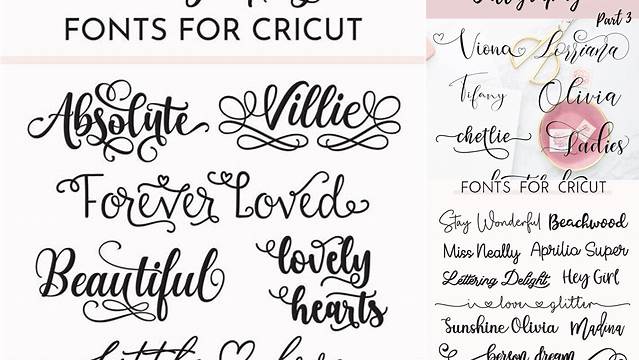
Elegant Calligraphy Fonts For Cricut: A How-To Guide
Hey crafters! Are you looking to add a touch of elegance and personalization to your Cricut projects? Look no further than the beautiful world of calligraphy fonts. In this guide, we'll dive deep into the best calligraphy fonts for Cricut, how to use them, and tips for creating stunning designs. Whether you're a beginner or an experienced crafter, this article will help you master the art of calligraphy with your Cricut machine.
What are Calligraphy Fonts?
Calligraphy fonts, at their core, are digital typefaces that mimic the fluid strokes and artistic flair of traditional hand-lettered calligraphy. These fonts go beyond the rigid structure of typical computer fonts, and instead feature flowing lines, varying stroke widths, and elegant flourishes that create a sense of handmade artistry. The magic of calligraphy fonts lies in their ability to evoke emotion and personality, making them ideal for a diverse range of projects from wedding invitations to home décor.
Calligraphy fonts are particularly useful for adding a personal touch to any design. Think about it – a handwritten element instantly elevates a project, making it feel more special and unique. This is where calligraphy fonts step in. They offer that beautiful, handwritten aesthetic without you needing to be a master calligrapher yourself! Imagine creating invitations that whisper elegance, personalized gifts that touch the heart, or home décor pieces that exude sophistication. That's the power of calligraphy fonts.
When we talk about the characteristics of calligraphy fonts, the first thing that often comes to mind is the flowing, connected letterforms. This continuous flow is a hallmark of traditional calligraphy and is expertly replicated in digital calligraphy fonts. The varying thickness of the strokes, another key characteristic, adds depth and dimension, mimicking the pressure applied by a calligrapher's pen. Delicate curves and elegant swashes further enhance the artistic nature of these fonts. And let's not forget the diverse range of styles within calligraphy fonts – from classic and formal scripts to modern and playful lettering, there's a calligraphy font to match every project and personality.
Now, why should you even bother using calligraphy fonts in your Cricut projects? Well, the answer is simple: they add a wow factor! Calligraphy brings an element of sophistication and craftsmanship that can't be achieved with standard fonts. Whether you're personalizing a gift, creating event signage, or designing a greeting card, calligraphy fonts will elevate your project to the next level. Plus, they allow you to express your creativity and personalize your projects in a way that feels truly special. So, ditch the mundane and embrace the elegance of calligraphy – your Cricut projects will thank you for it!
Why Use Calligraphy Fonts with Cricut?
Using calligraphy fonts with your Cricut machine opens up a whole new world of creative possibilities. The Cricut, a versatile cutting machine, allows you to cut, write, and draw with a variety of materials, making it the perfect tool for incorporating calligraphy into your projects. But why choose calligraphy fonts over other font styles? The answer lies in the unique aesthetic and emotional impact that calligraphy provides. It’s not just about the words; it’s about the feeling the words evoke.
One of the main reasons to use calligraphy fonts is to add elegance and a personal touch to your creations. Think about wedding invitations, greeting cards, and personalized gifts. A beautifully written name or message in calligraphy can transform an ordinary item into a cherished keepsake. The flowing lines and graceful curves of calligraphy fonts convey a sense of sophistication and care, making your projects stand out. Using calligraphy fonts is like adding a signature touch that says, “This was made with love and attention to detail.”
Another compelling reason to use calligraphy fonts is their versatility. While they are often associated with formal events like weddings, calligraphy fonts can also be used in a variety of other projects. Consider using them for inspirational quotes, home décor, or even business branding. The key is to choose a font that matches the overall style and tone of your project. For instance, a modern calligraphy font with clean lines might be perfect for a business logo, while a traditional script font would be ideal for a classic wedding invitation. The possibilities are endless, and with a little experimentation, you can discover how calligraphy fonts can enhance almost any project.
Moreover, calligraphy fonts offer a unique way to express your creativity. With a Cricut machine, you can easily manipulate the size, color, and placement of calligraphy fonts to create custom designs. You can also combine calligraphy with other design elements, such as illustrations and patterns, to create truly unique pieces. Using calligraphy fonts is an opportunity to push your creative boundaries and develop your personal style. Whether you’re a seasoned crafter or just starting out, calligraphy fonts can inspire you to create projects that are both beautiful and meaningful.
In essence, incorporating calligraphy fonts into your Cricut projects is about adding a layer of artistry and emotion. It’s about taking your creations beyond the ordinary and making them truly special. So, why settle for standard fonts when you can embrace the elegance and versatility of calligraphy? Give it a try, and you’ll be amazed at the difference it makes!
Top Calligraphy Fonts for Cricut
Calligraphy fonts are a fantastic way to add a touch of elegance and personalization to your Cricut projects. By understanding the different types of calligraphy fonts, how to use them in Cricut Design Space, and following our tips for beautiful results, you can create stunning designs that stand out. So, grab your Cricut, explore the world of calligraphy fonts, and let your creativity flow! Happy crafting, guys!